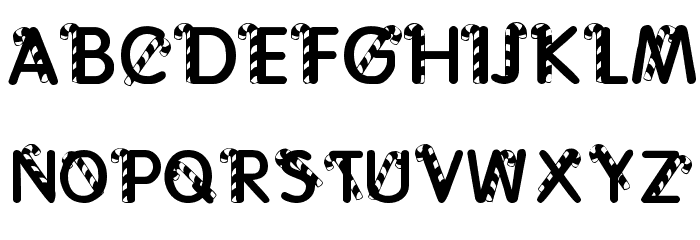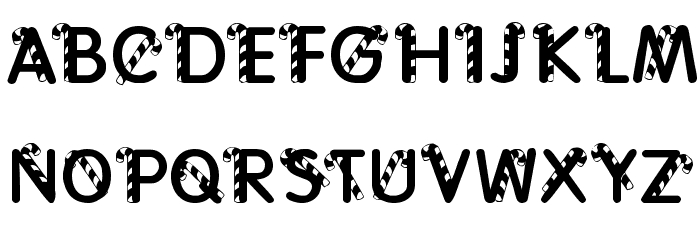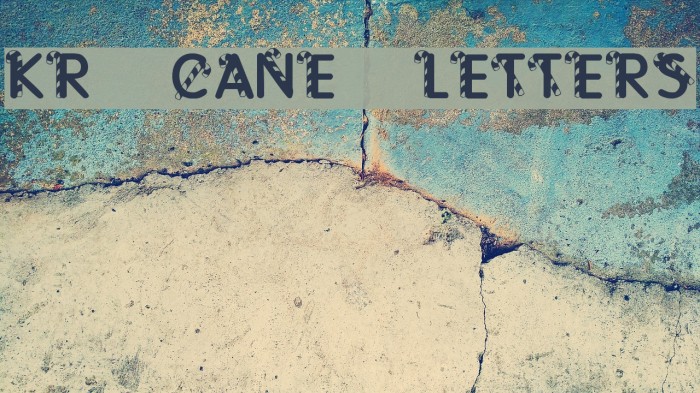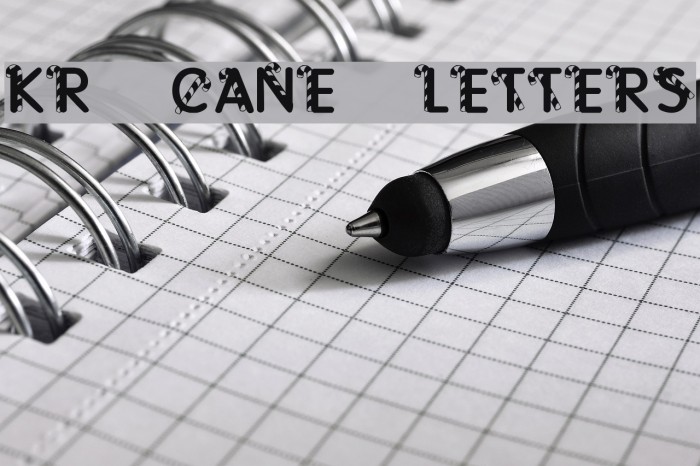
KR Cane Letters Font
This playful and decorative font features a candy cane motif, with each letter incorporating a striped pattern reminiscent of traditional holiday treats. The design is bold and eye-catching, making it ideal for festive occasions. The uppercase letters are uniform in height, with a consistent width that gives the font a balanced appearance. The whimsical style is perfect for adding a touch of holiday cheer to any project. The font's unique design elements make it stand out, while still maintaining legibility.
A decorative font with a candy cane striped pattern, perfect for festive designs.
- Proposed Projects: Ideal for holiday-themed projects, greeting cards, festive banners, and playful branding.